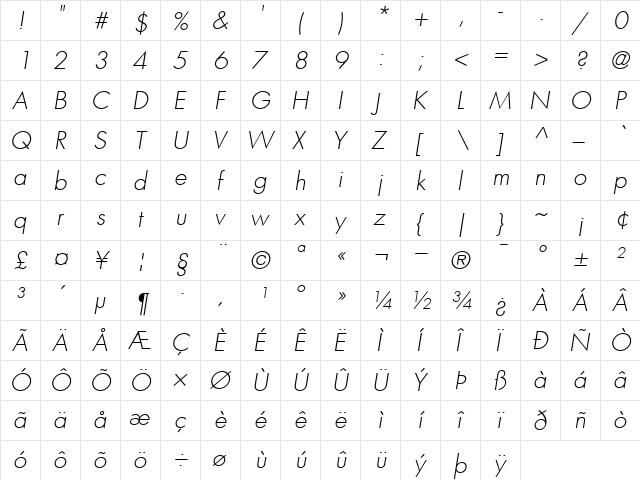
Futura-Light LightItalic Font Preview
Design Context for Futura-Light Typeface
Futura-Light has a distinctly futuristic character, with geometric precision and clean angles that feel at home in technology, gaming, and sci-fi contexts. The dynamic lean of this cut emphasises speed and emphasis in any layout. The delicate stroke weight brings airiness and refinement to layouts.